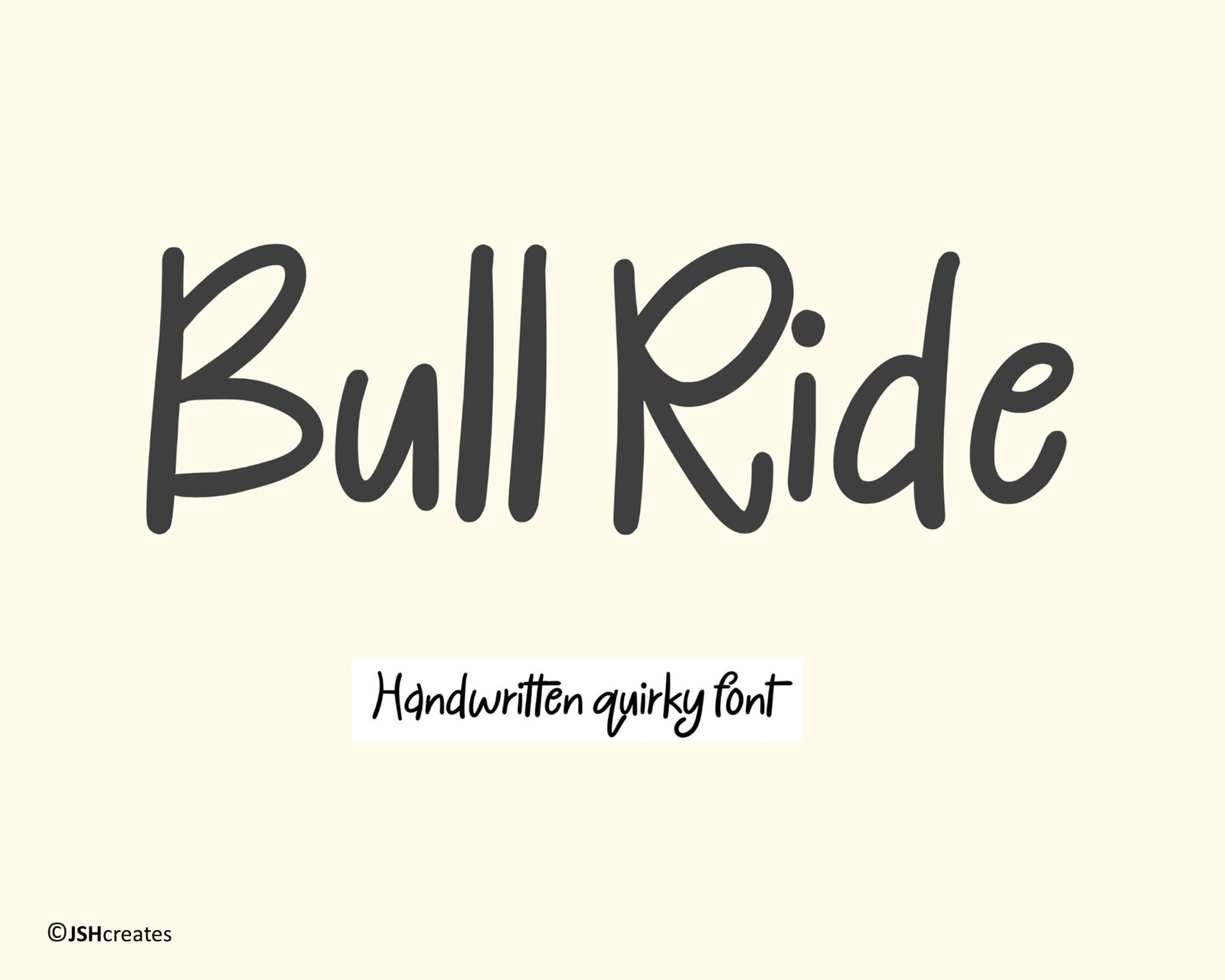
Bull Ride Font
Handwritten quirky font. “Bull Ride”. Perfect for advertising and display purposes, including banners, book covers, shirts, posters, logos and much more!